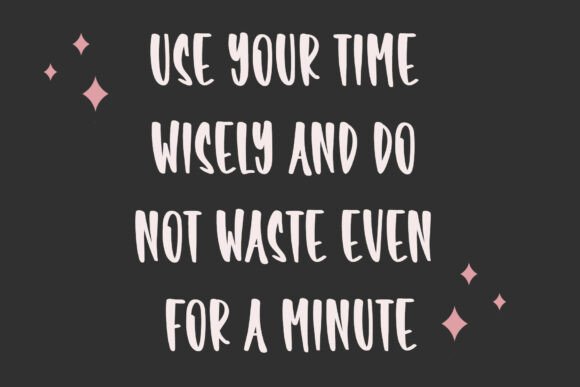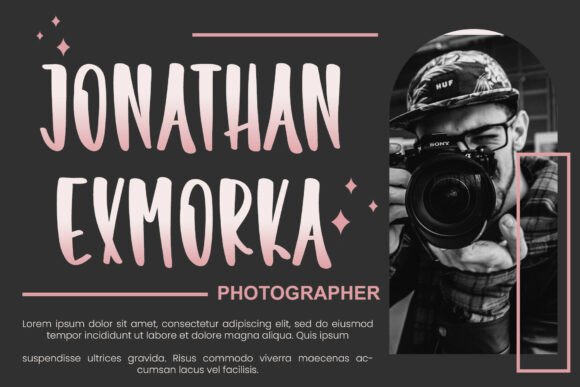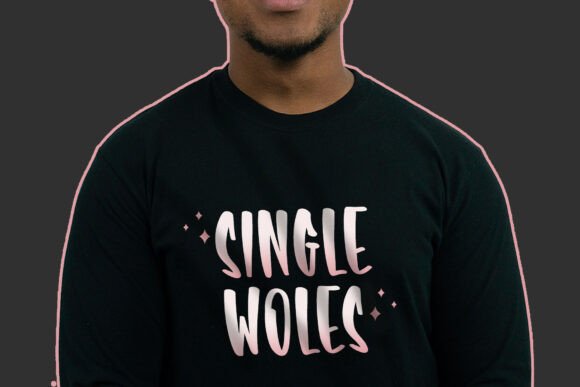
Introduction to Cupid Preppy Font
Cupid Preppy is a captivating display font that combines strength and elegance, making it perfect for bold and eye-catching designs.
With its unique letterforms and a touch of mystery, this charming font adds a sense of wonder and sophistication to any project Whether you’re aiming for a mystical, modern, or elegant look, Magical Whisper is the font that enchants and inspires.
Key Features of Cupid Preppy Font
Why Choose Cupid Preppy Font?
Cupid Preppy Font offers exceptional quality and versatility, making it a valuable addition to your design toolkit. Whether you’re creating for personal projects or commercial use, Cupid Preppy Font delivers professional results.